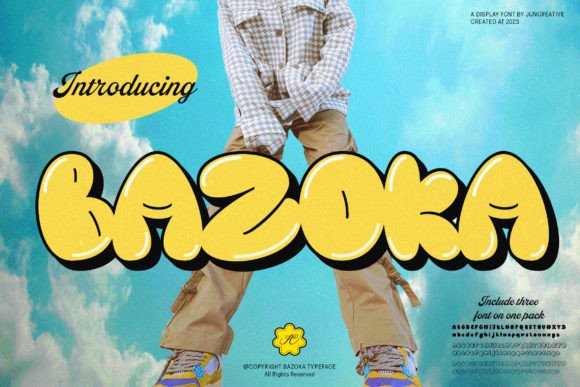
Bazoka Font: The Ultimate Graffiti Bubble Font for Urban-Themed Designs
In the world of typography, fonts play a crucial role in conveying the tone and personality of a design. When it comes to creating informal or urban-themed designs, a font that exudes a sense of playfulness and energy is essential. This is where the Bazoka font comes in – a display font that mimics the look of hand-drawn graffiti lettering, perfect for adding a bold and bubbly touch to your designs.
What is Bazoka Font?
Bazoka font is a display font designed to replicate the look of hand-drawn graffiti lettering. The letters are rounded and bubbly in shape, with a bold appearance that is sure to grab attention. The font’s unique design makes it perfect for informal or urban-themed designs, such as posters, flyers, and street art.
Characteristics of Bazoka Font
The Bazoka font has several distinct characteristics that make it stand out from other fonts. Some of its key features include:
- Rounded and Bubbly Letters: The letters in the Bazoka font are rounded and bubbly in shape, giving them a playful and energetic feel.
- Bold Appearance: The font has a bold appearance that is sure to grab attention, making it perfect for designs that need to stand out.
- Hand-Drawn Graffiti Style: The font is designed to mimic the look of hand-drawn graffiti lettering, giving it a unique and urban feel.
Uses of Bazoka Font
The Bazoka font is perfect for a variety of design projects, including:
- Posters: The font’s bold and playful design makes it perfect for creating eye-catching posters for events, promotions, or announcements.
- Flyers: The font’s urban feel makes it perfect for creating flyers for concerts, festivals, or other events.
- Street Art: The font’s graffiti style makes it perfect for creating street art, such as murals or stencil art.
- Branding: The font’s unique design makes it perfect for creating bold and eye-catching brand logos or packaging.
Benefits of Using Bazoka Font
There are several benefits to using the Bazoka font in your designs, including:
- Unique and Eye-Catching Design: The font’s bold and playful design is sure to grab attention and make your designs stand out.
- Perfect for Informal or Urban-Themed Designs: The font’s graffiti style and urban feel make it perfect for creating informal or urban-themed designs.
- Easy to Read: Despite its bold and playful design, the font is easy to read, making it perfect for use in a variety of design projects.
How to Use Bazoka Font
Using the Bazoka font in your designs is easy. Here are a few tips to get you started:
- Choose the Right Size: The font is designed to be used at larger sizes, so choose a size that is big enough to make an impact.
- Experiment with Colors: The font looks great in a variety of colors, so experiment with different colors to find the one that works best for your design.
- Pair with Other Fonts: The font can be paired with other fonts to create a unique and eye-catching design.
In conclusion, the Bazoka font is a fun and energetic way to add personality to your designs. Its unique graffiti bubble style and bold appearance make it perfect for informal or urban-themed designs, such as posters, flyers, and street art. With its easy-to-read design and versatility, the Bazoka font is a great choice for designers looking to add a bold and playful touch to their designs.
- What is the Bazoka font?: The Bazoka font is a display font that mimics the look of hand-drawn graffiti lettering.
- What is the Bazoka font used for?: The font is perfect for informal or urban-themed designs, such as posters, flyers, and street art.
- Is the Bazoka font easy to read?: Yes, despite its bold and playful design, the font is easy to read.